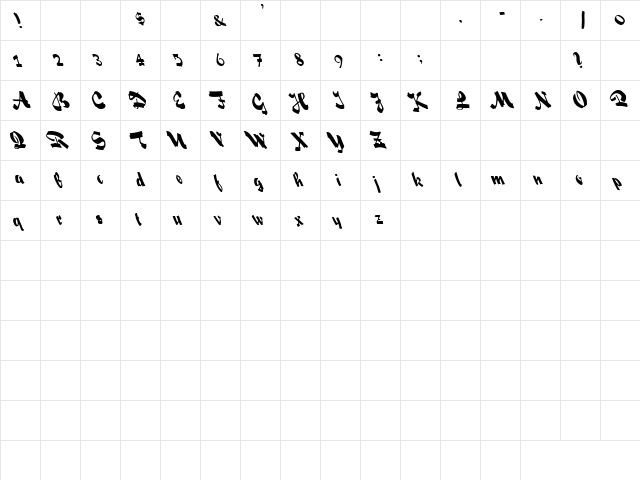
Sociopath 2 Regular Font Preview
Sociopath 2 Regular
Design Context for Sociopath 2 Typeface
Sociopath 2 is a composed and adaptable typeface that performs quietly and consistently across a wide range of design contexts.